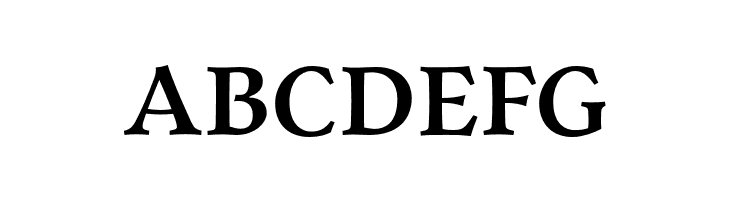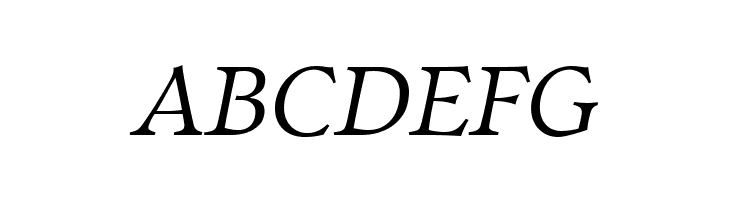
A bold, italic serif font with strong, dynamic letterforms.
A bold serif font with strong, consistent strokes and pronounced serifs.
A classic serif font with elegant strokes and refined details.
A bold, italic serif font with strong contrast and elegant serifs.
An elegant italic serif font with smooth curves and moderate slant.